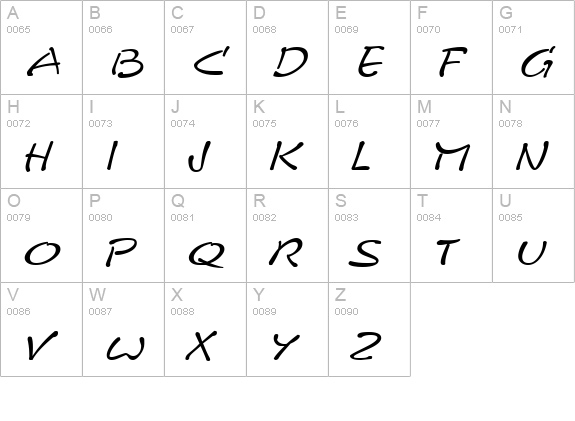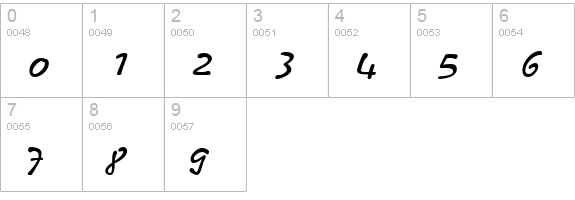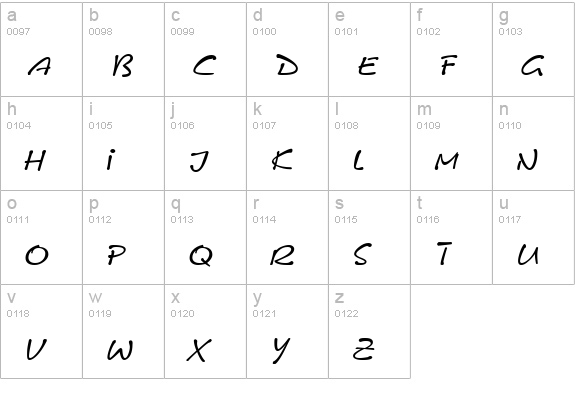
PyxidQuick Regular Font Details
PyxidQuick Regular is the standard, neutral variant in the PyxidQuick typeface family \xE2\x80\x94 well suited to general body text, paragraphs, and standard typographic work.
PyxidQuick Regular is a versatile and modern font that exudes a sense of sophistication and elegance. With its clean lines and balanced proportions, this typeface is perfect for a wide range of design projects, from branding and advertising to editorial and web design. The crisp and clear letterforms make PyxidQuick Regular easy to read at any size, ensuring that your message is always conveyed effectively. The best part about PyxidQuick Regular is that it is available for free download at FontsMarket.com. This means that you can add this stylish font to your collection without breaking the bank. Don't miss out on the opportunity to enhance your designs with the timeless appeal of PyxidQuick Regular – download it today and start creating beautiful typography that stands out from the rest.